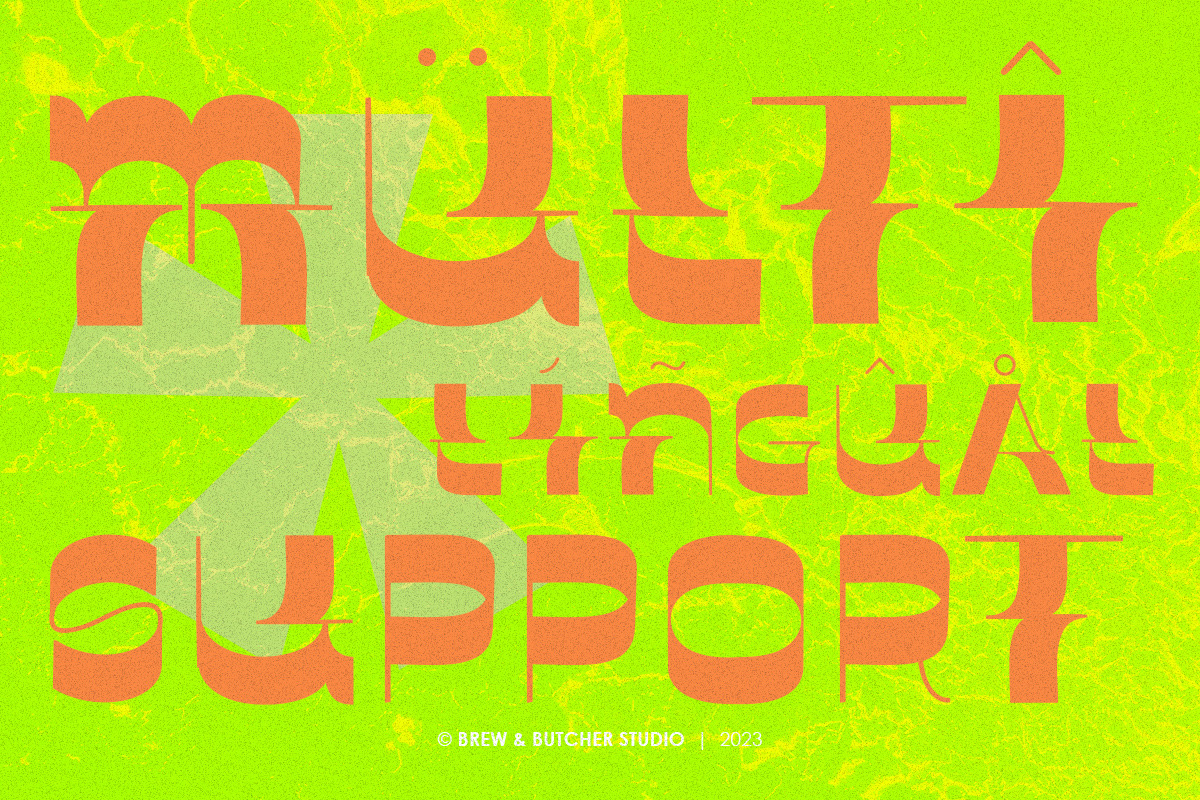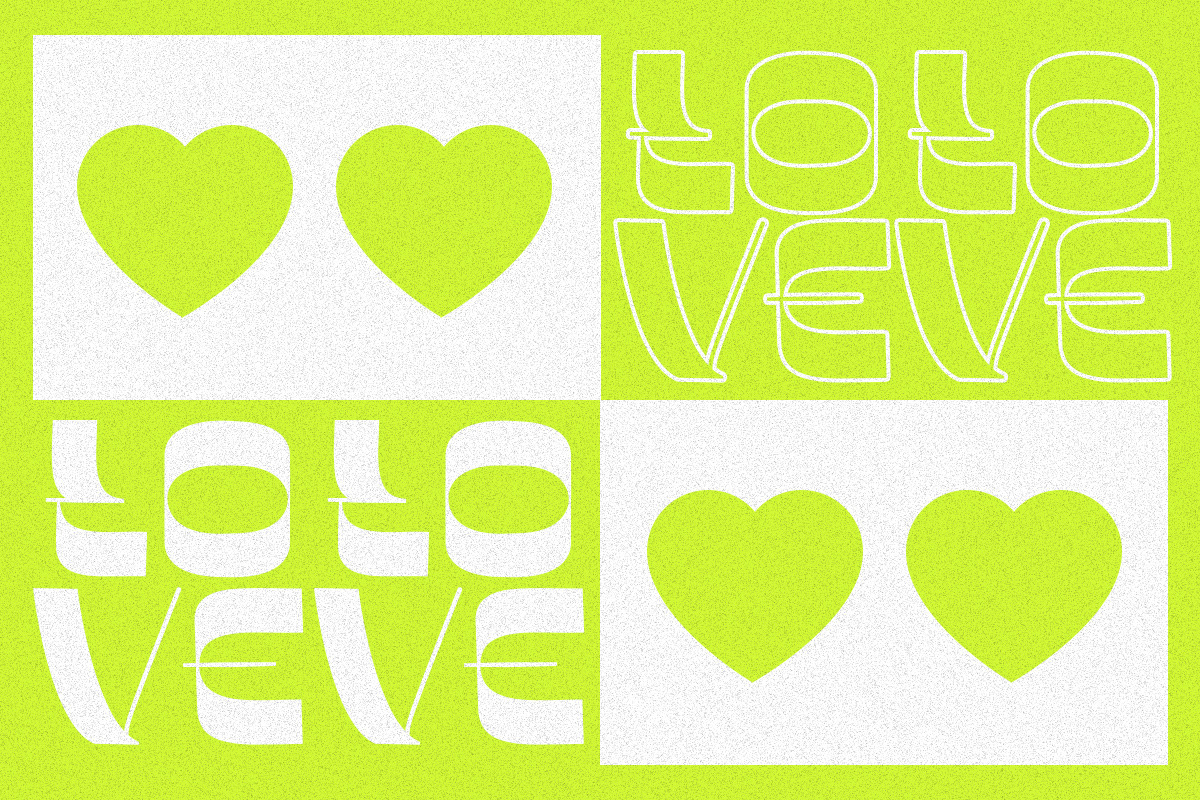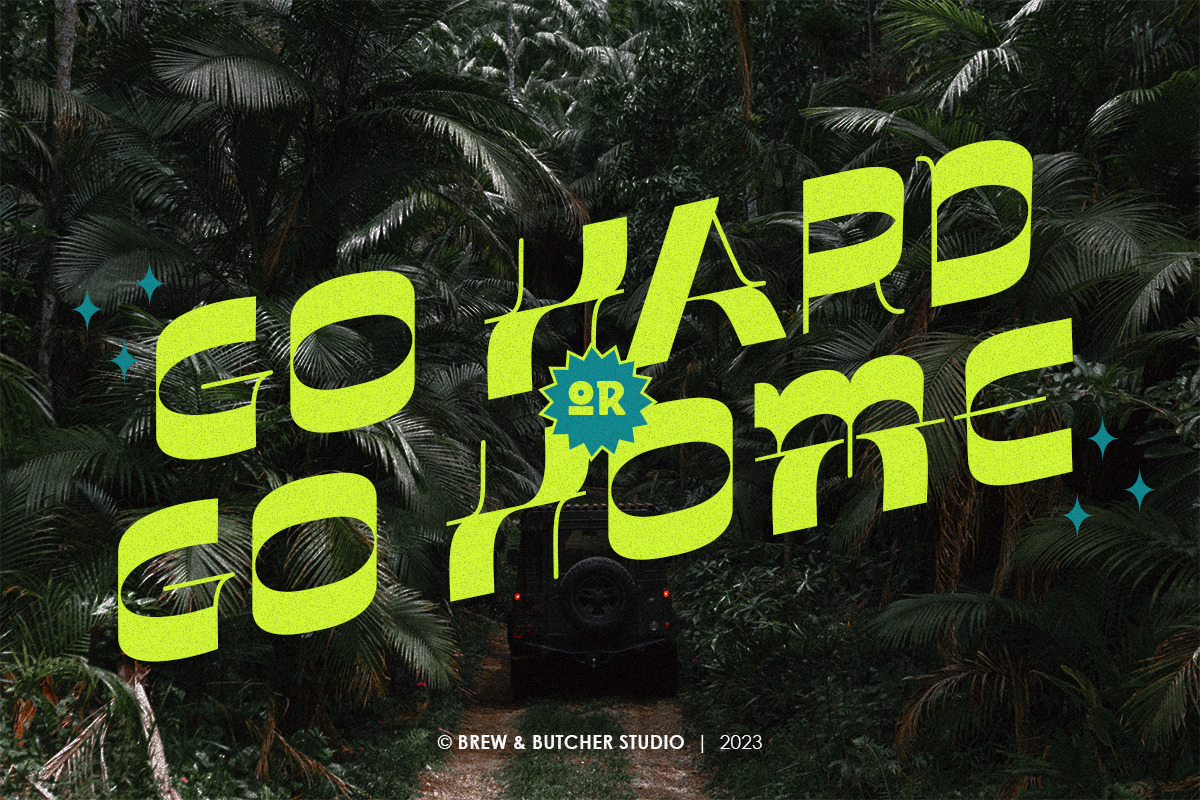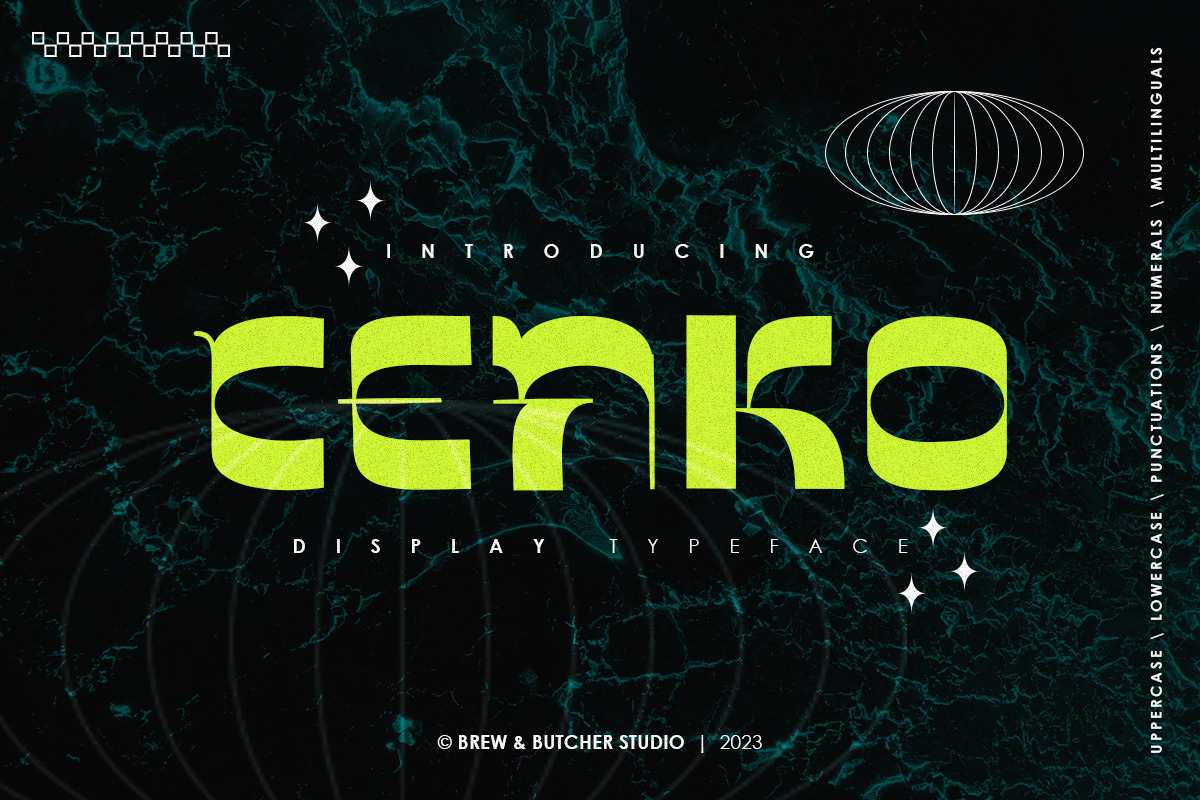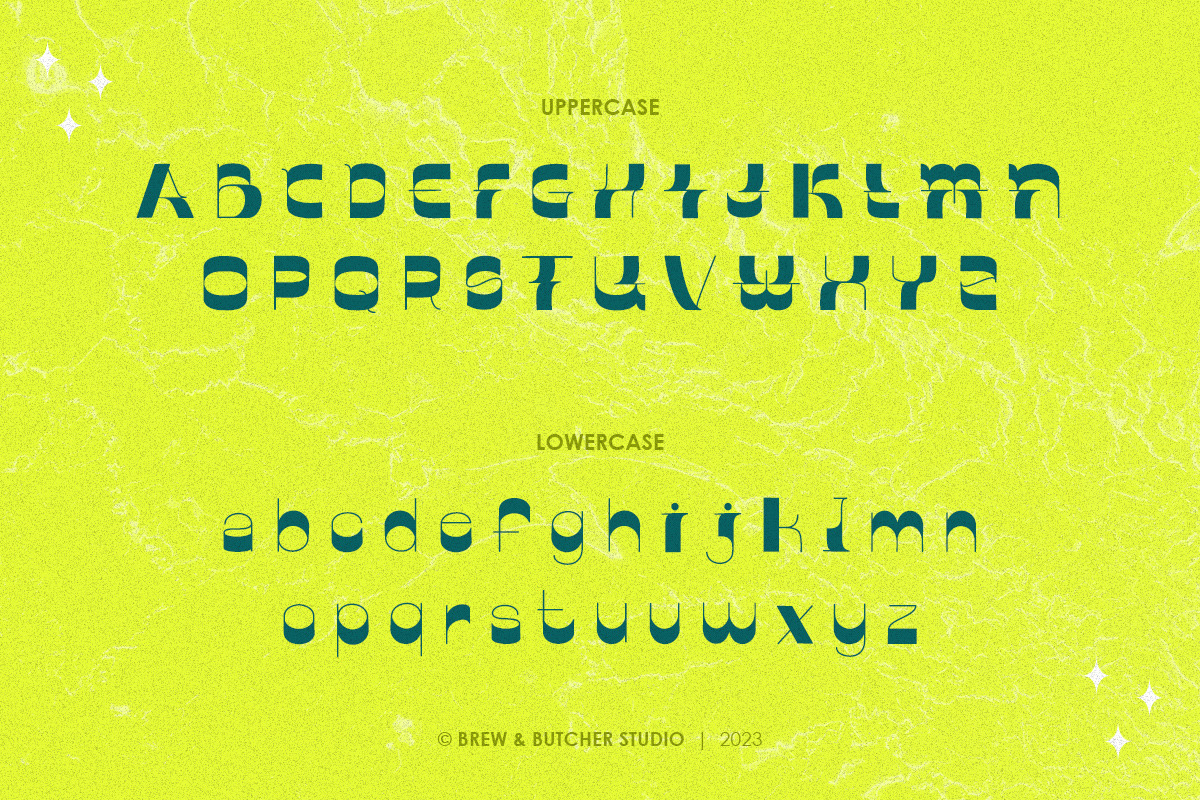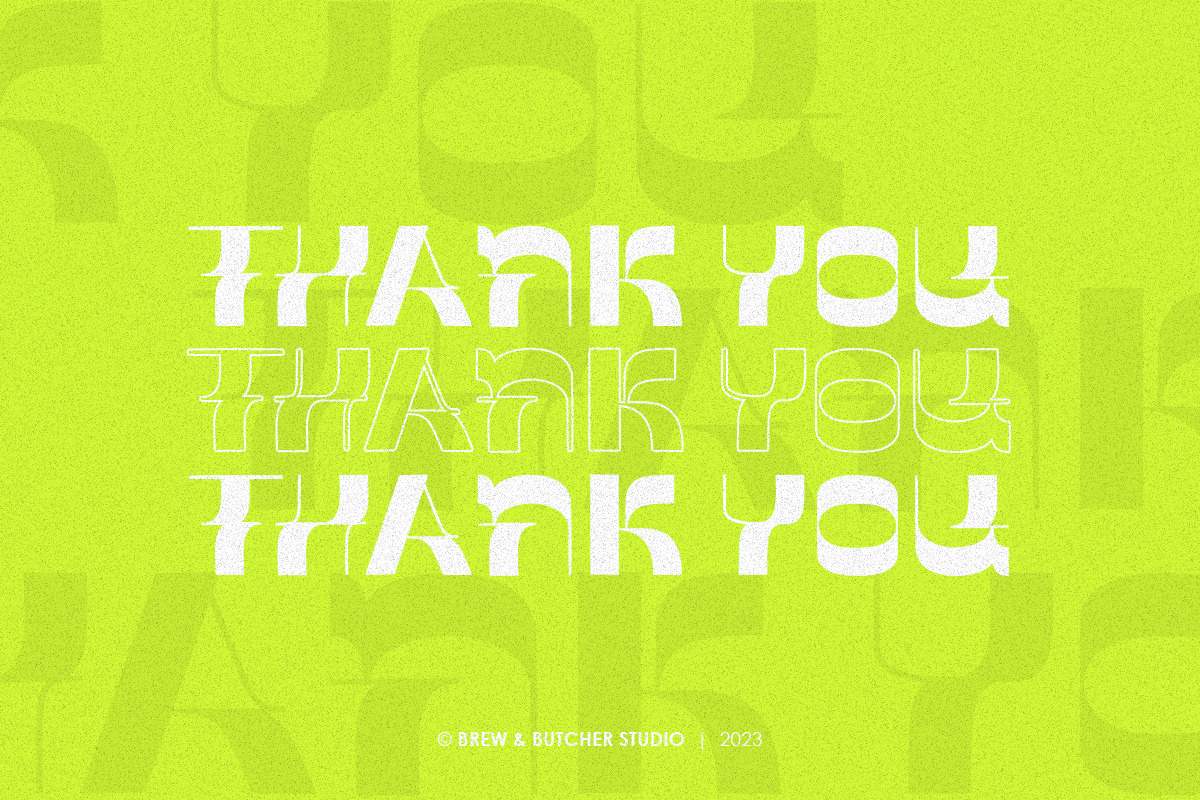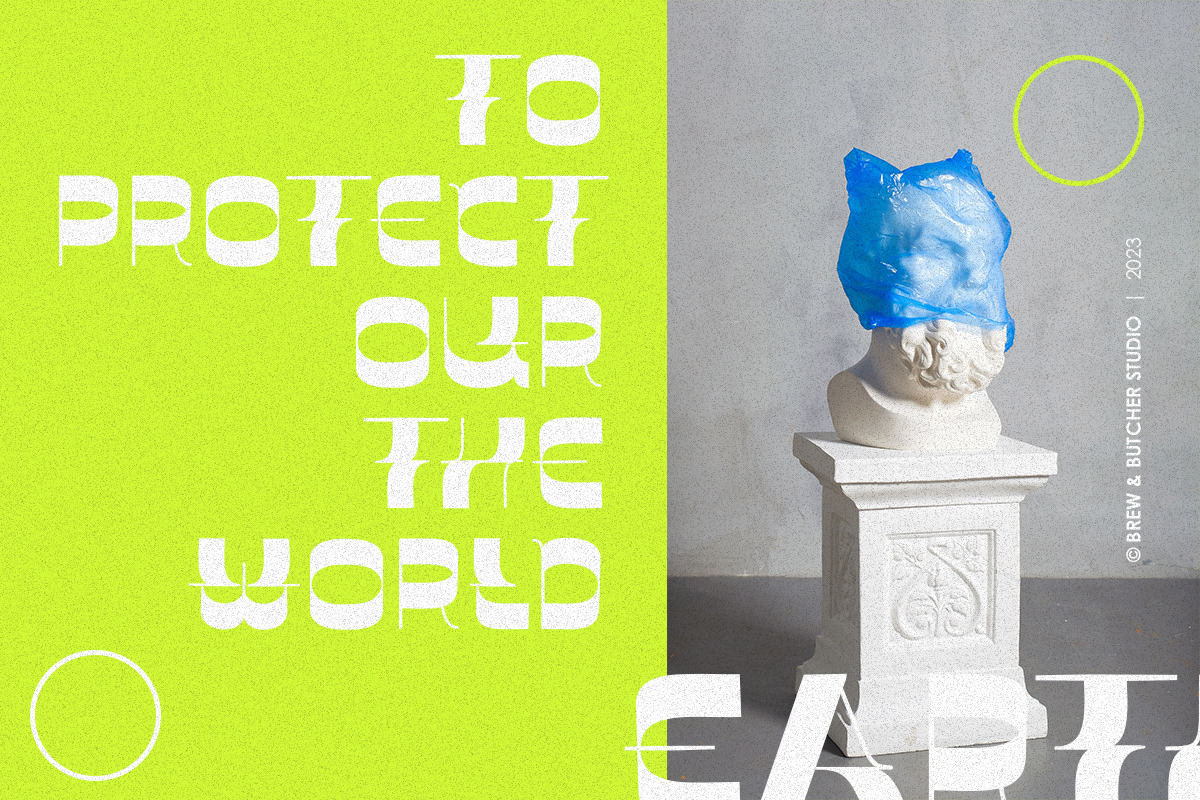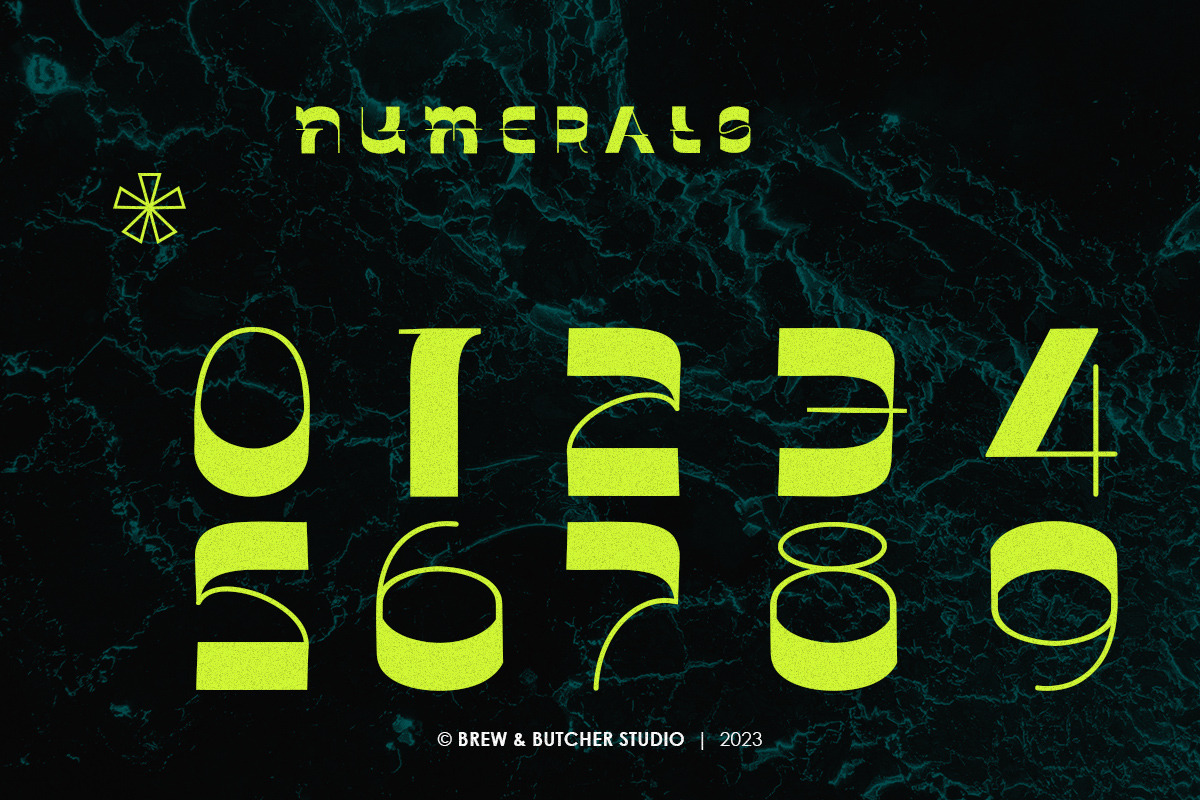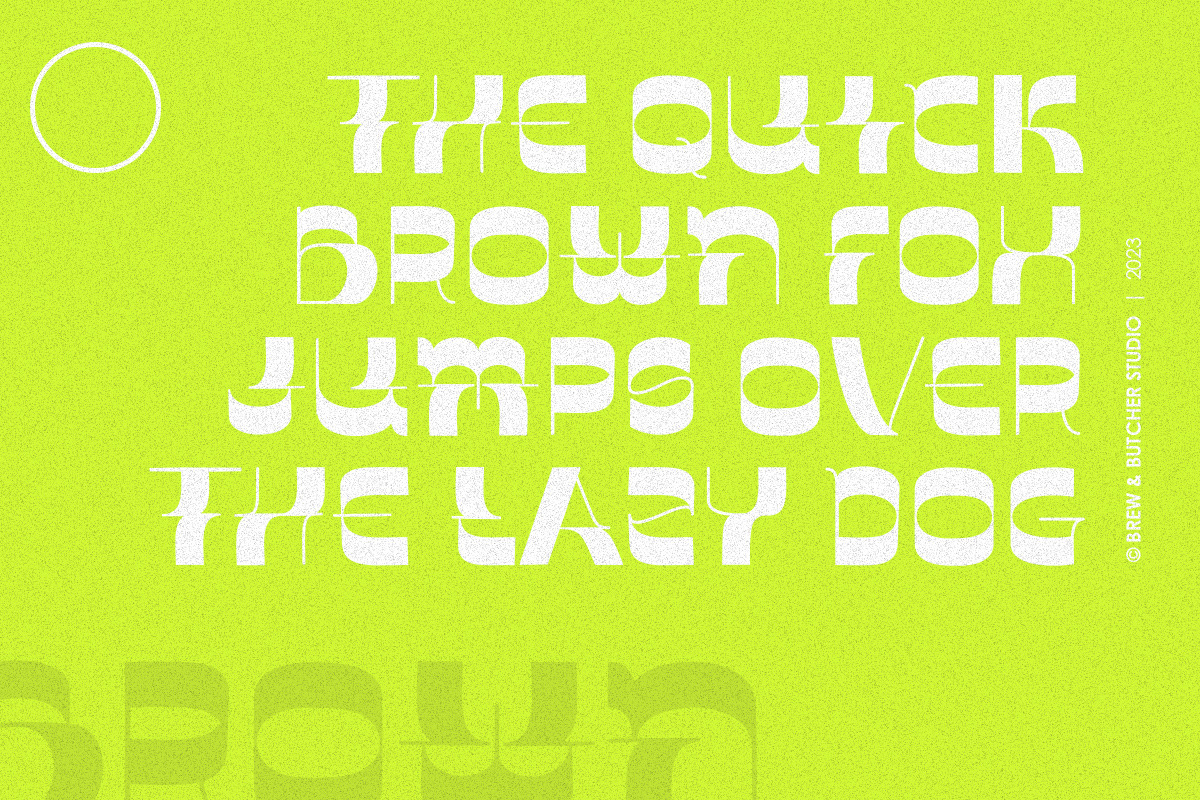
Cenko | Display Typeface
Cenko is a font that has a unique and attractive shape. Inspired by lines that are inconsistent but provide unity and have a balanced impression in their form. With the combination of a block and a line, it makes it more solid and comfortable to look at.. This font is best to use for header or headline, poster, flyer, banner, landingpage, portfolio, name write, album covers, and etc.
- Multilanguage